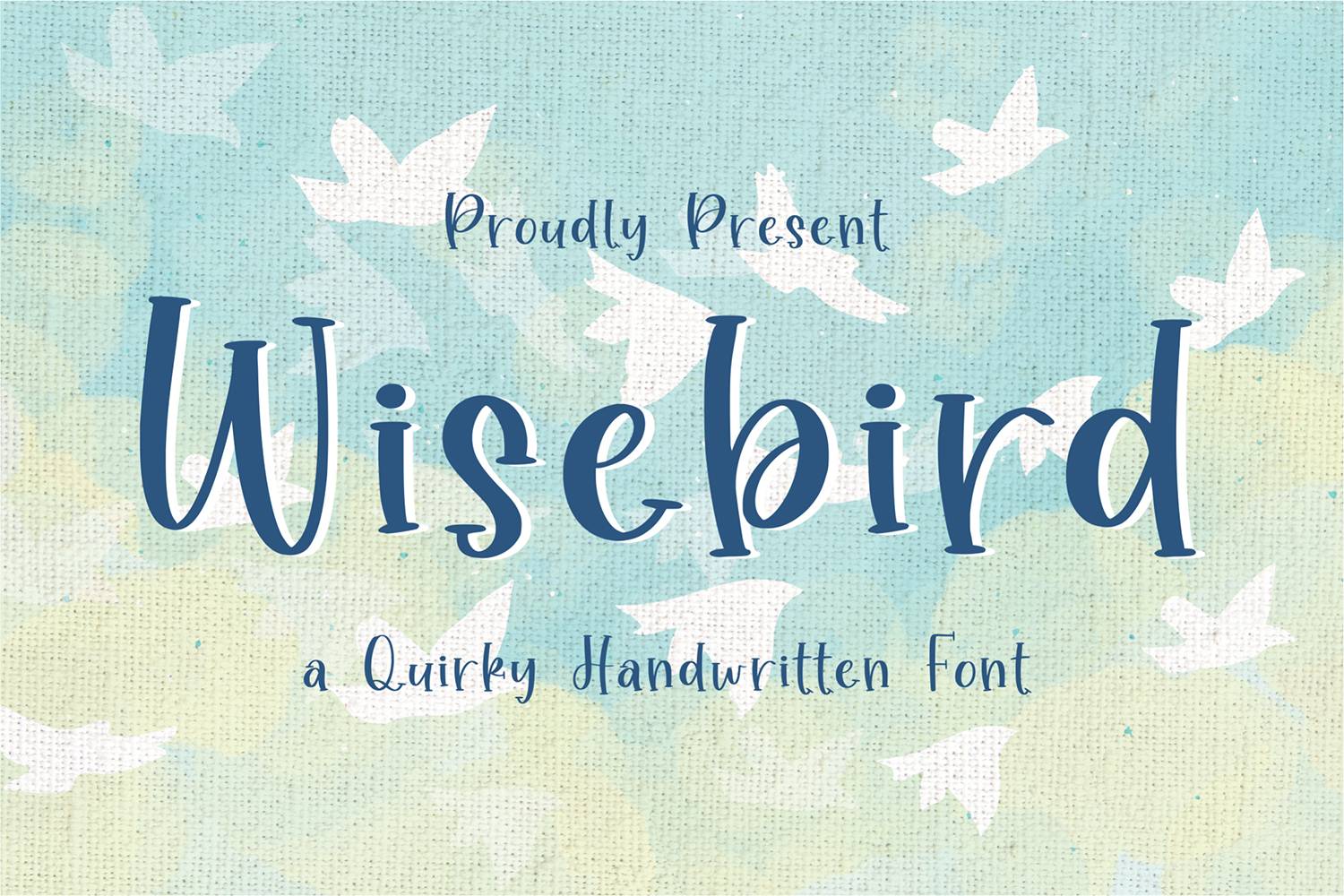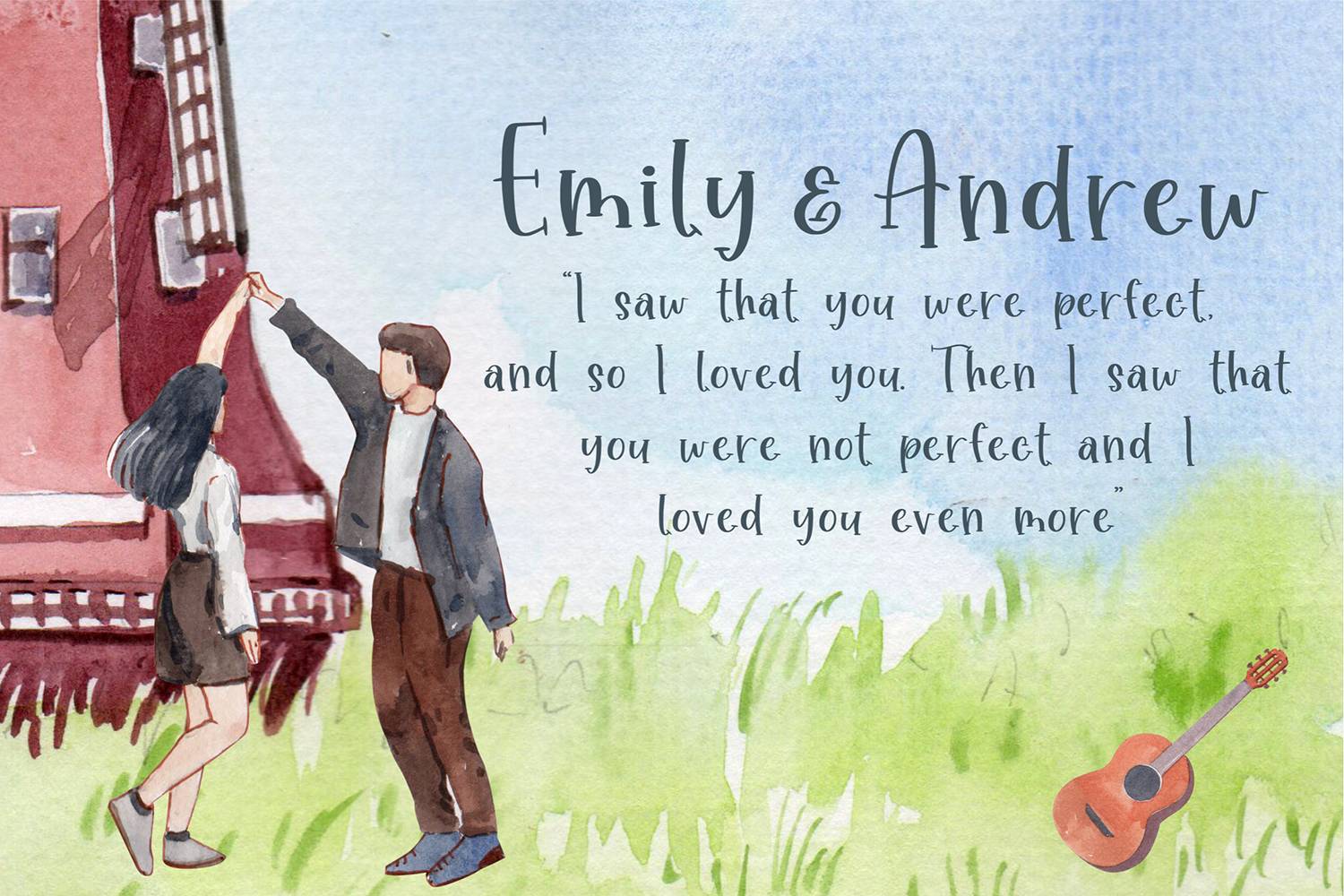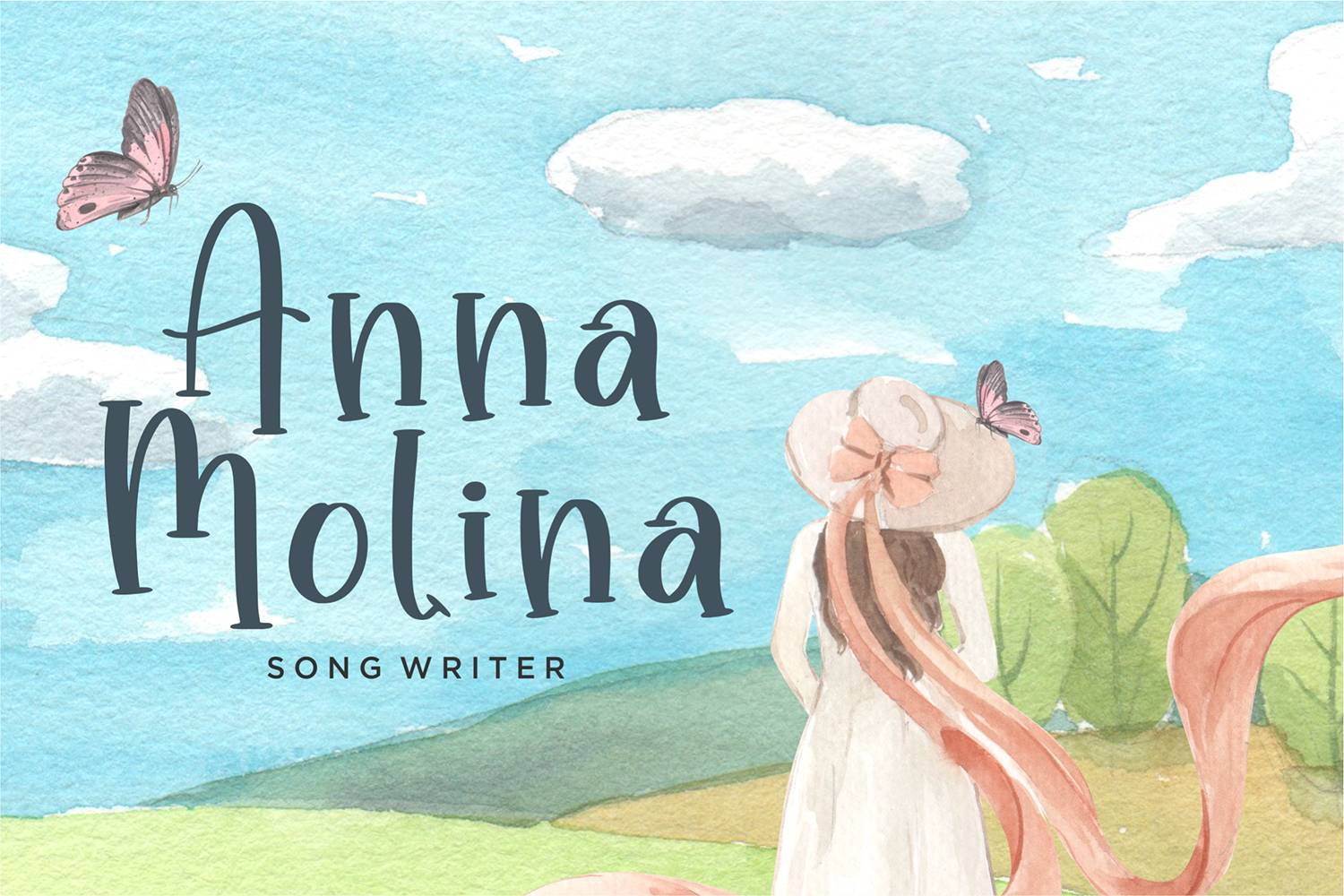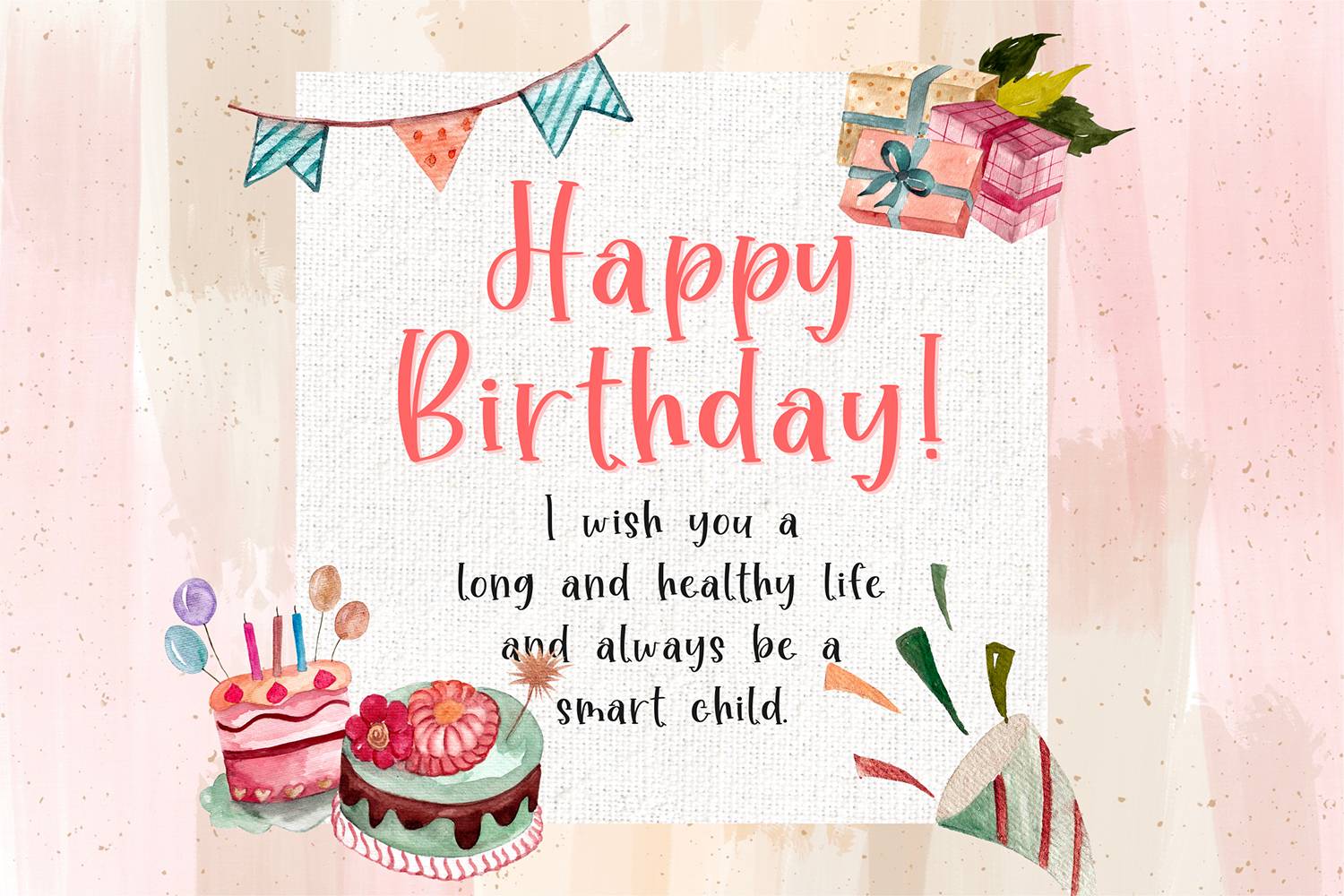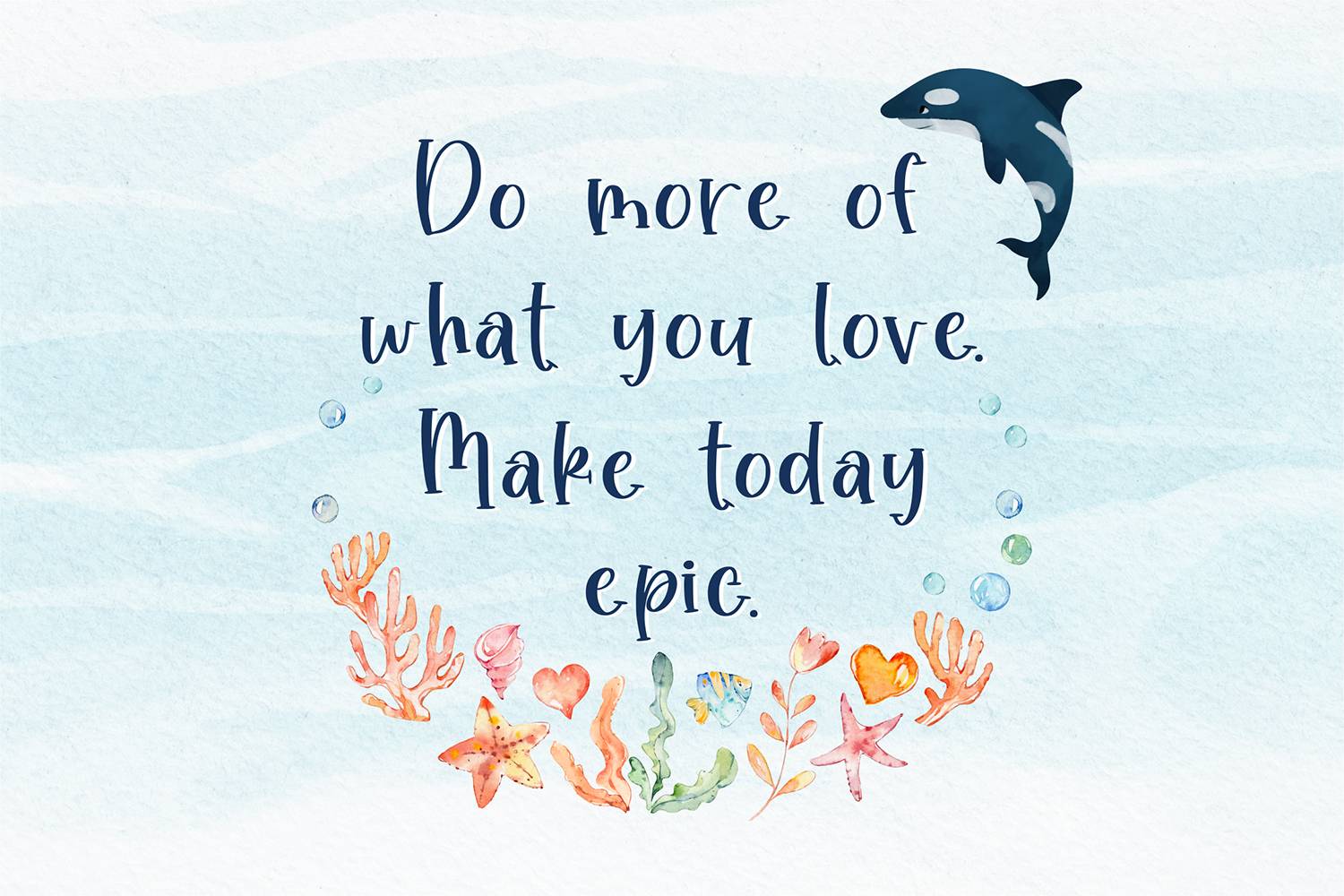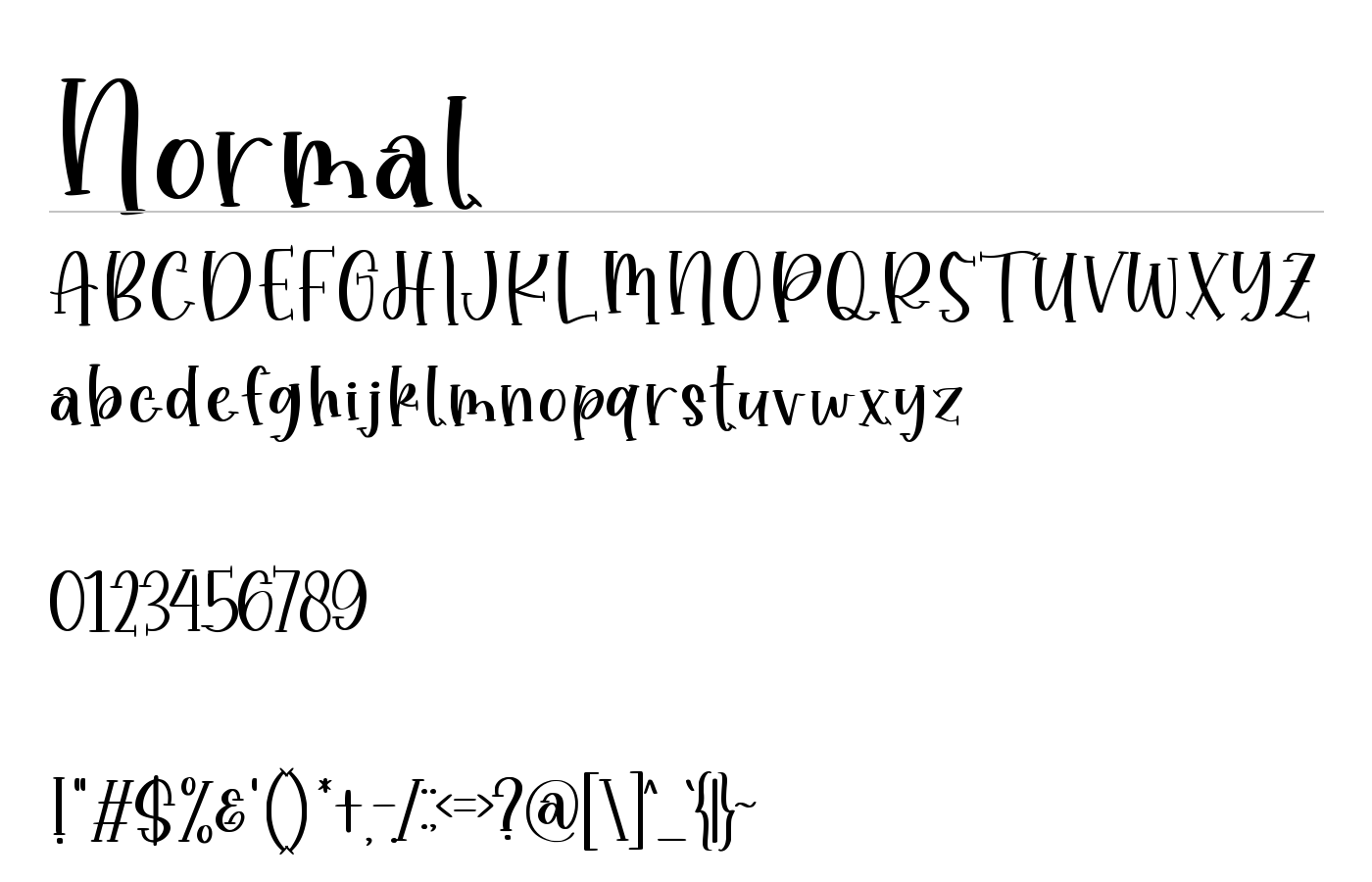
Wisebird is a playful and quirky serif font that features tall, slender letterforms with whimsical, irregular shapes and subtle stroke contrast. Its light weight and narrow width give it an elegant yet informal feel, making it perfect for creative projects, casual branding, and invitations where a charming and unique personality is desired. This font works well in headlines and decorative uses, adding a distinctive hand-crafted touch to designs.
Wisebird Font
About Wisebird Font